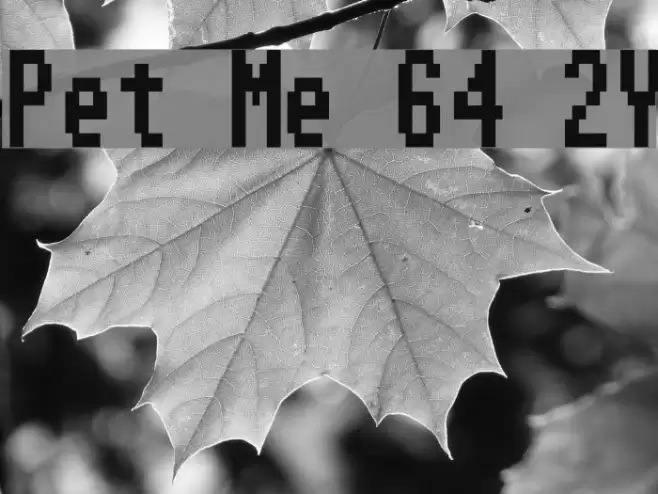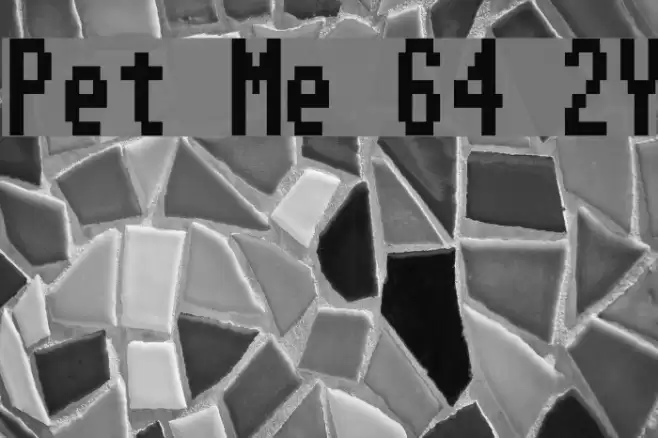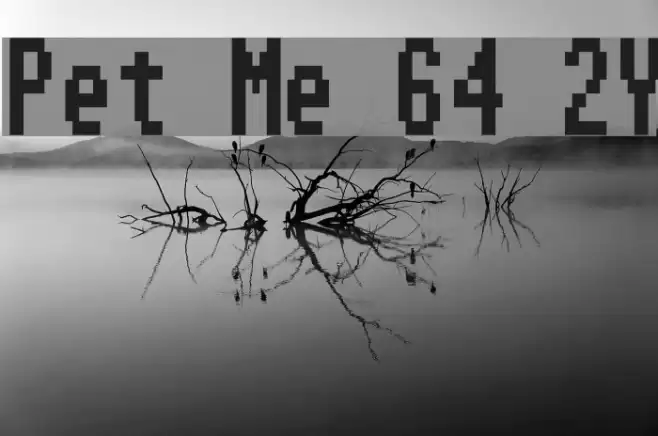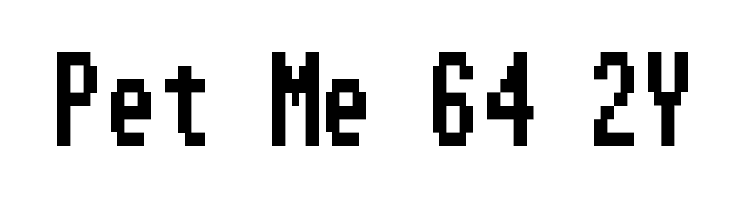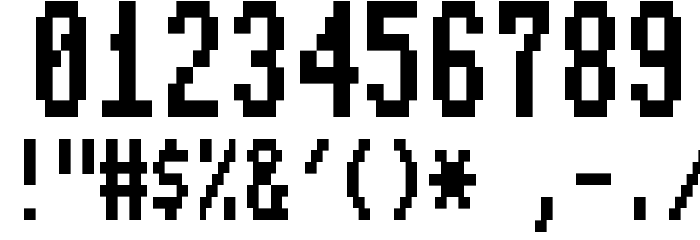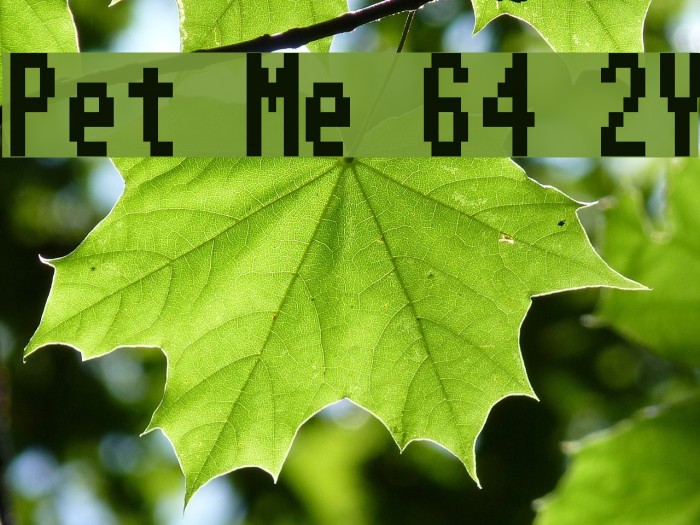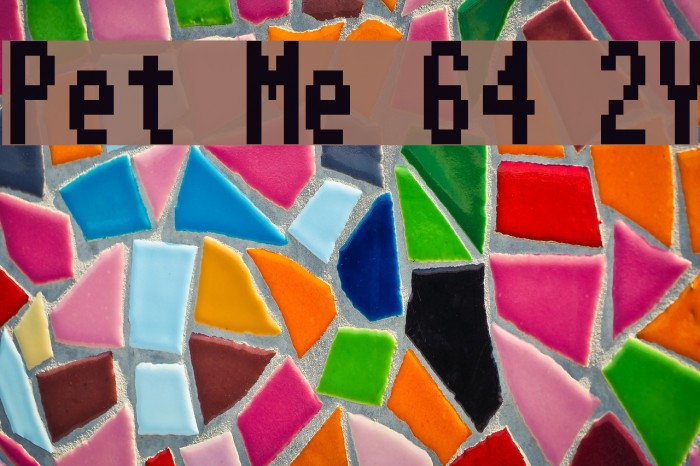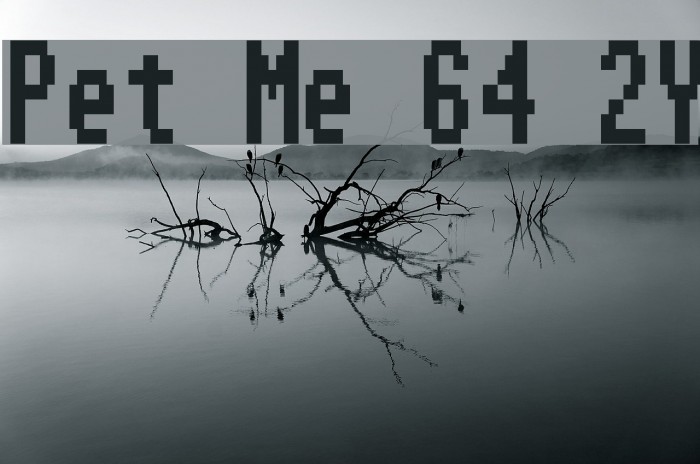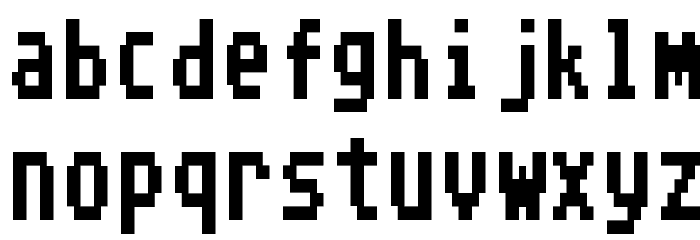
Pet Me 64 2Y Font
Pet Me 64 2Y Description
This font features a pixelated, blocky style reminiscent of early digital displays and retro video games. Each character is constructed with a uniform grid-like pattern, giving it a distinctly digital and nostalgic appearance. The uppercase and lowercase letters maintain a consistent height and width, emphasizing the monospaced nature of the design. Numbers and special characters follow the same pixelated structure, ensuring uniformity across all glyphs. The font's simplicity and clarity make it highly legible, even at smaller sizes, while its unique style adds a playful, vintage touch to any project.
A pixelated, monospaced font with a retro digital style from Uncategorized fonts.
- Proposed Projects: Ideal for retro video game designs, digital-themed posters, and nostalgic branding projects.
- Overall Style: Vintage
- Use Case: Logos, Headlines, Digital displays